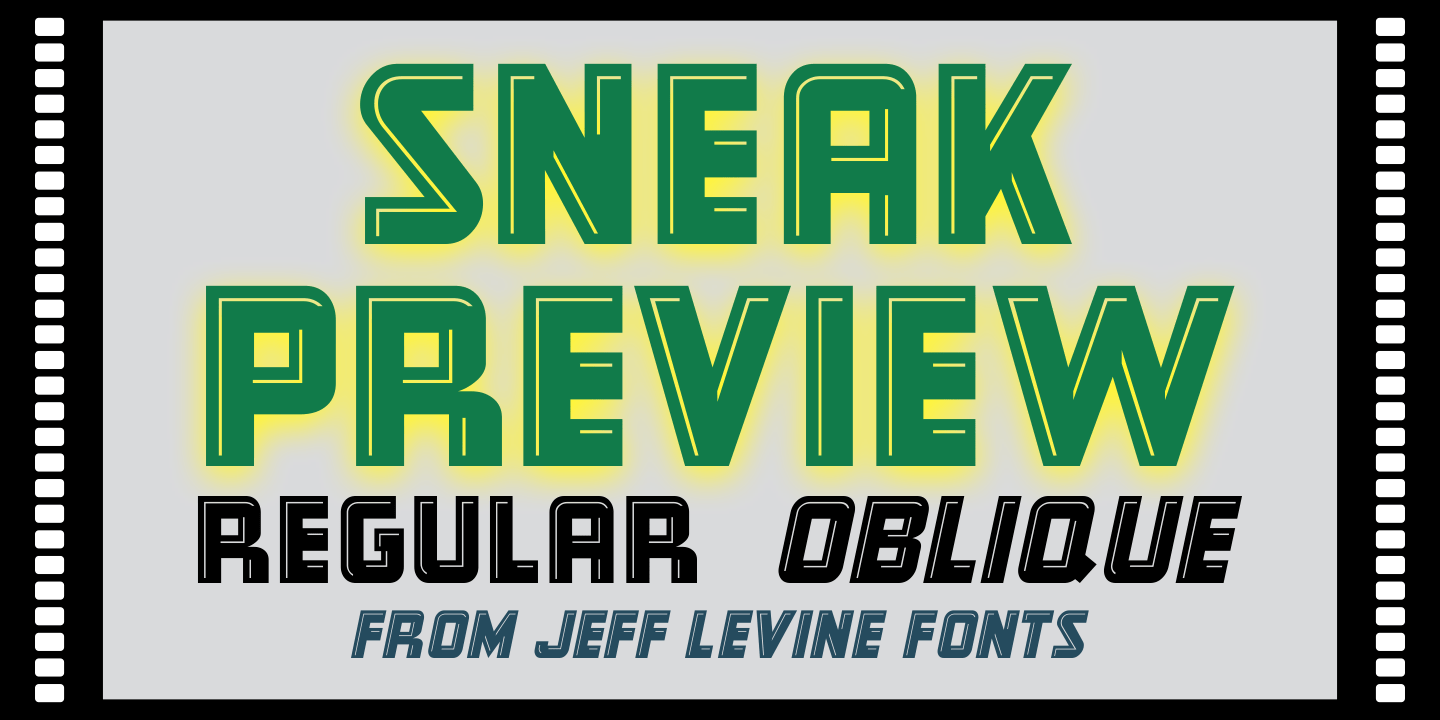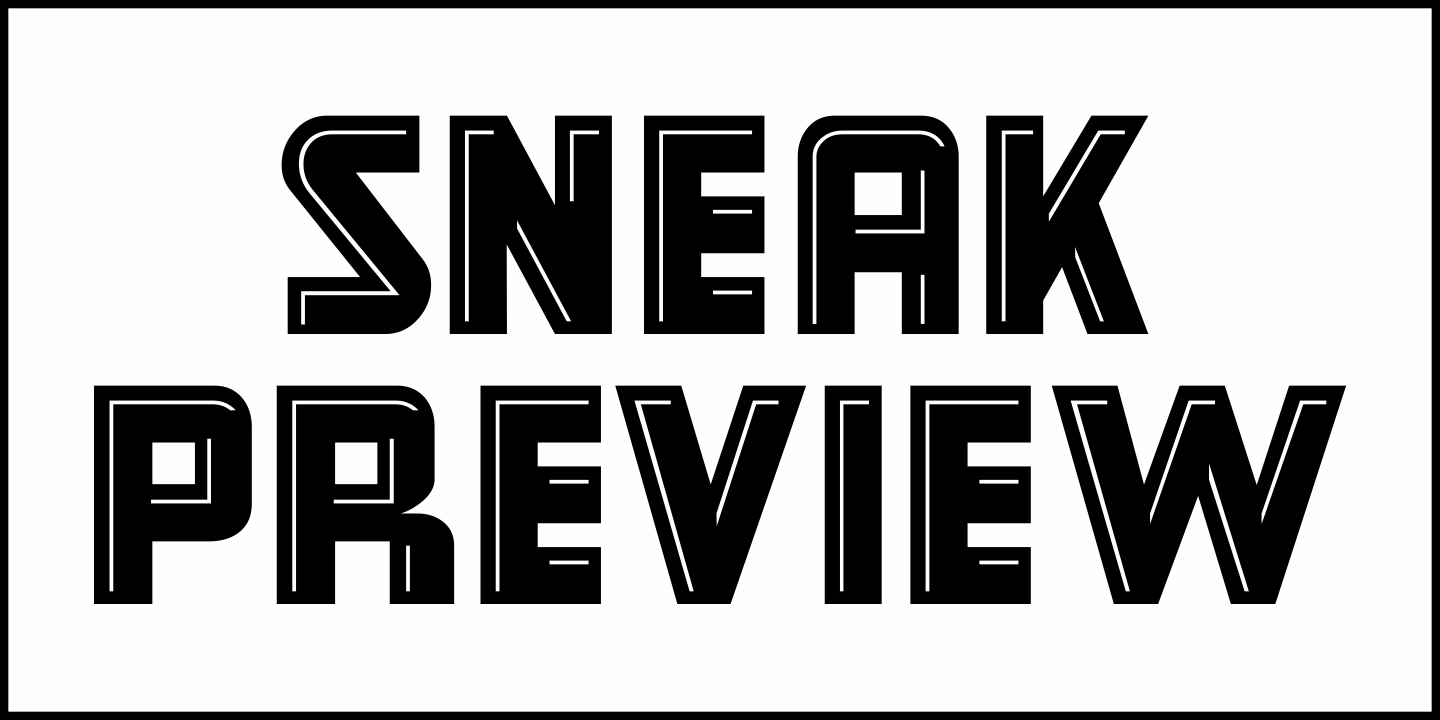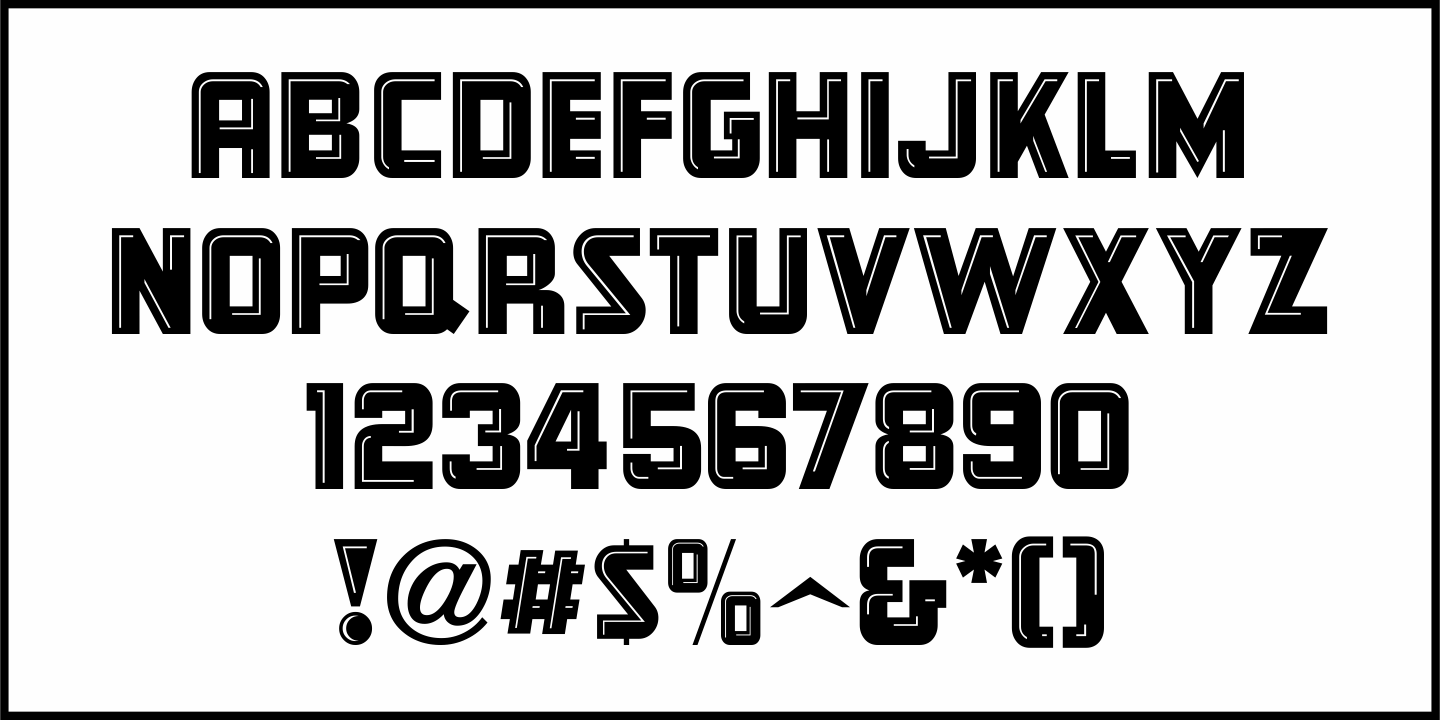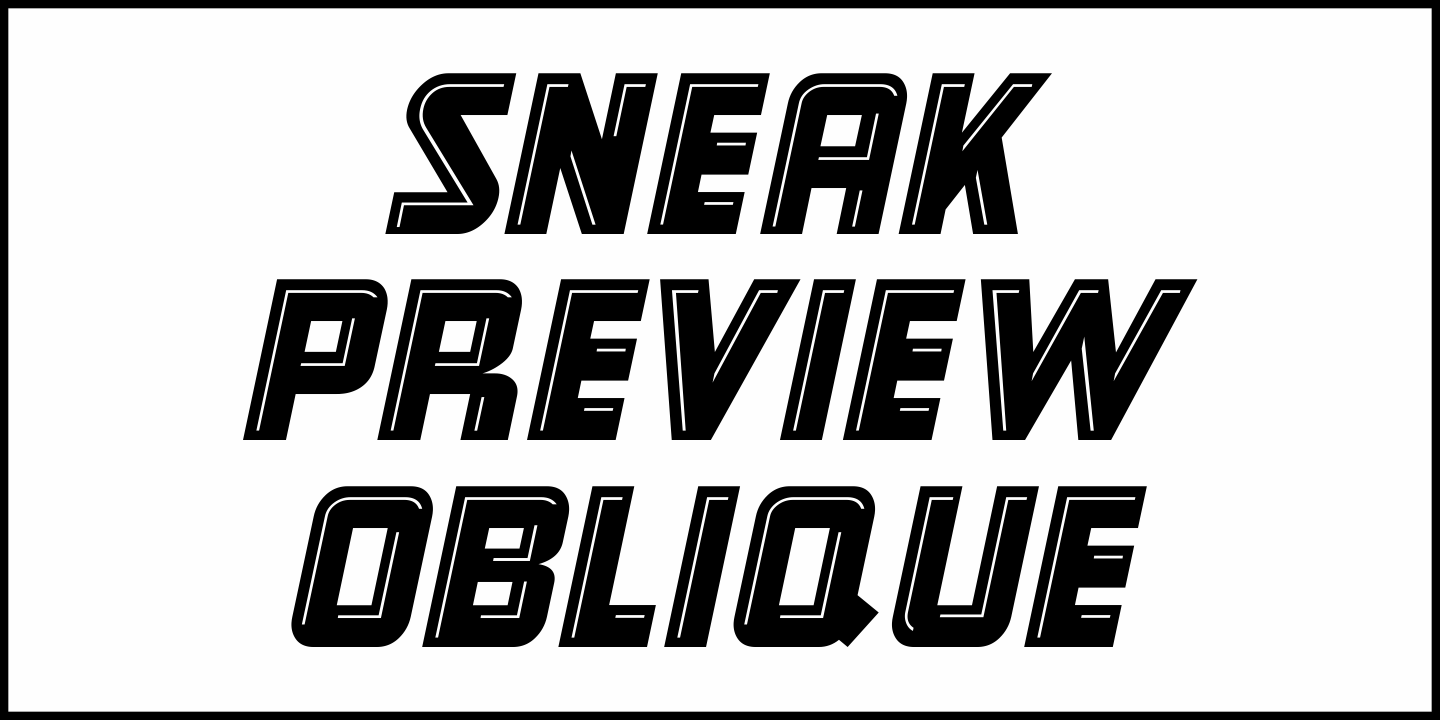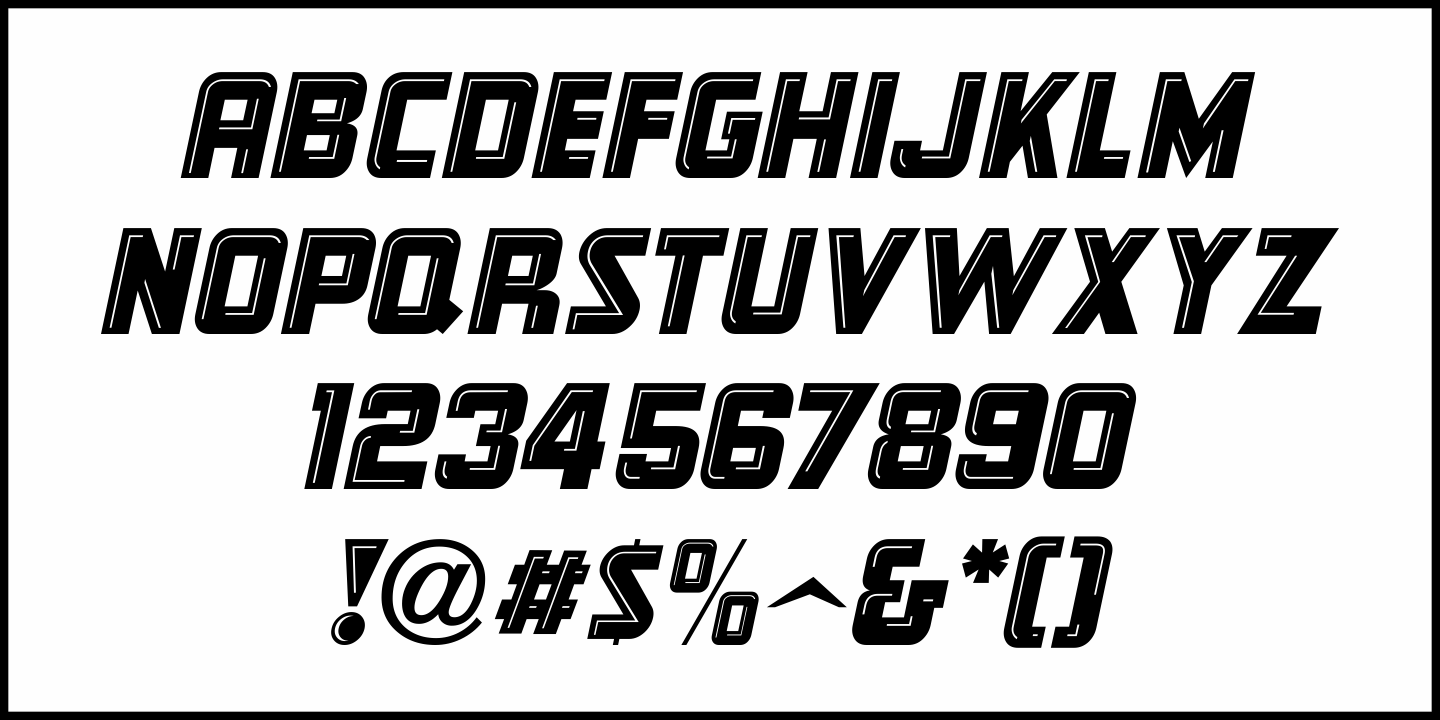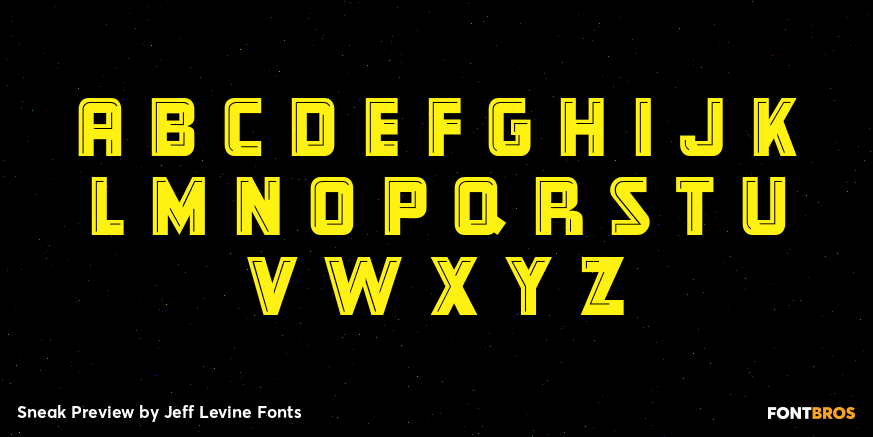
Sneak Preview
An ad in the April 30, 1936 issue of Motion Picture Daily for Columbia Pictures contained ultra bold sans serif hand lettering with 'highlight' lines added.
The letterforms feature an Art Deco style which is squared in shape with rounded corners. This strong design has an attention-getting look that is perfect for headlines that will make people take notice.
This is now available digitally as Sneak Preview JNL in both regular and oblique versions.